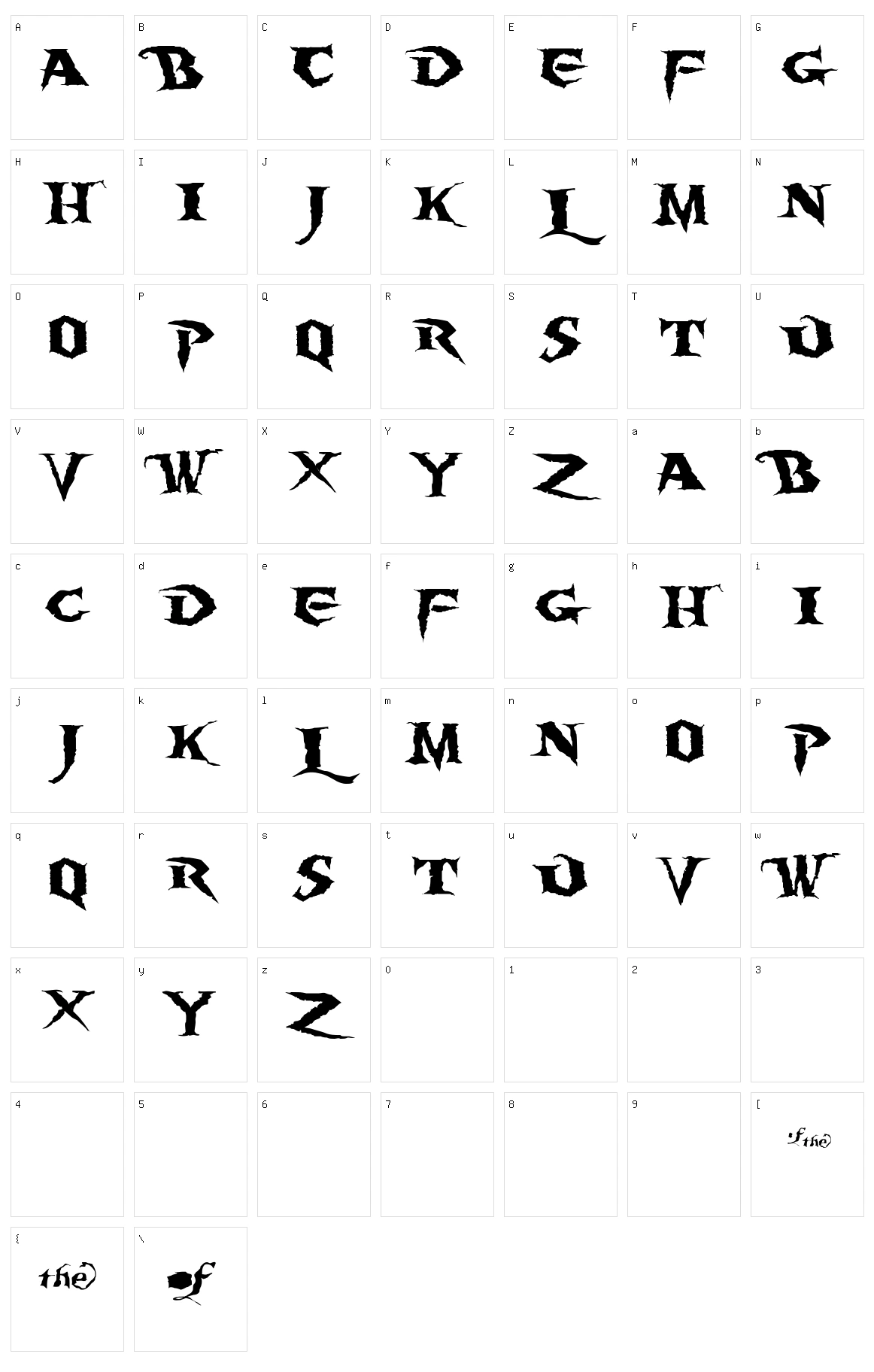
The free font Burning Wrath is carefully designed by Timothy Lyle, showcasing a thoughtful balance of creativity and usability and falls under the Horror font style. When you download the ZIP file, it contains only 24.93 KB of font files, making it lightweight and quick to download. Please review the license details below to understand permitted usage and distribution rights. If license information is not available, we recommend using this font for personal projects only or contacting the author directly for commercial usage permissions.